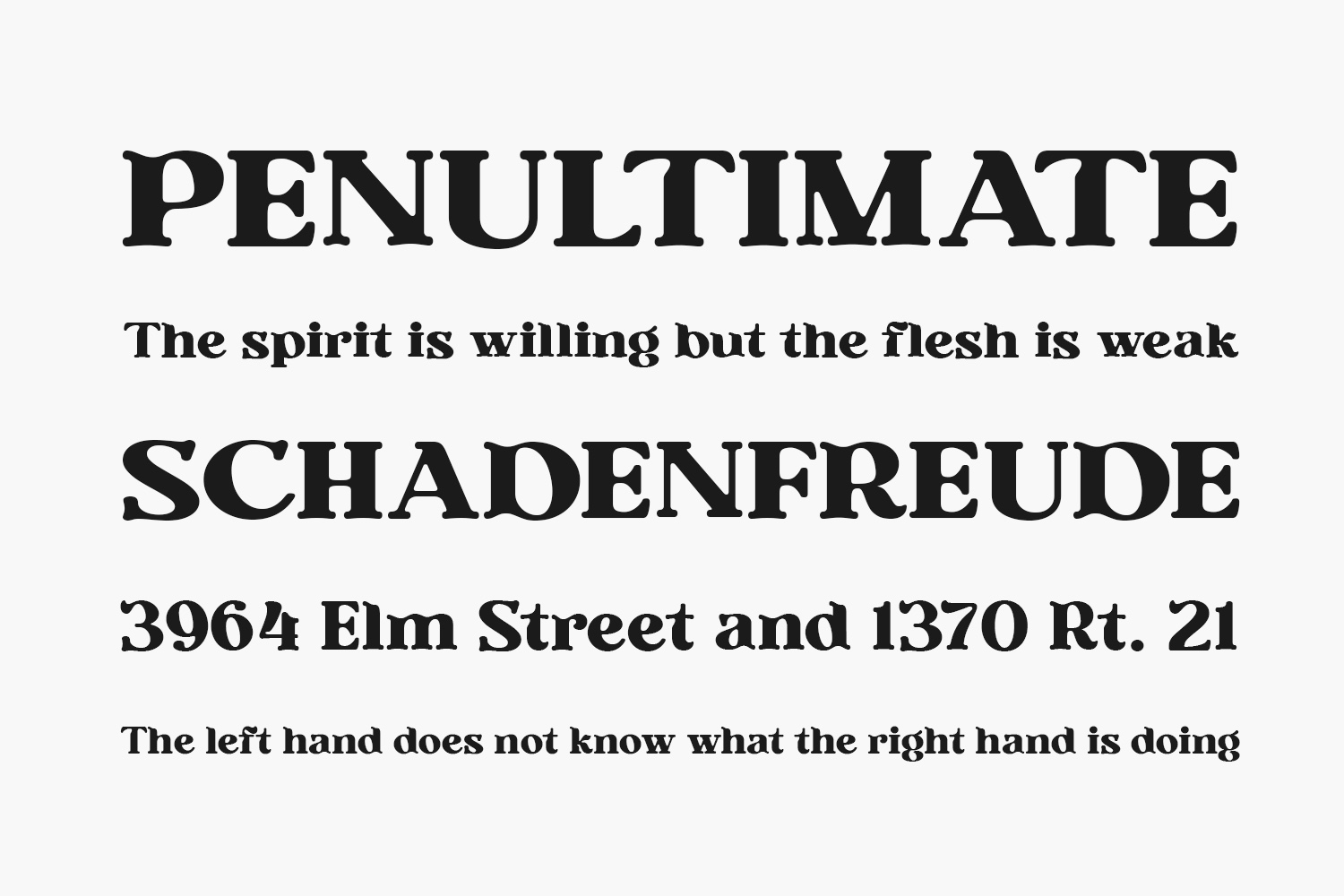
Ropers Free Font is an elegant and trendy looking serif font. It is defined by smooth curves and is perfect for fashion branding or editorial designs. Add it confidently to your projects, and you will love the results. Ropers Free Font was designed by Ardyana Types and is free for personal use only. Please purchase the full version for commercial use.